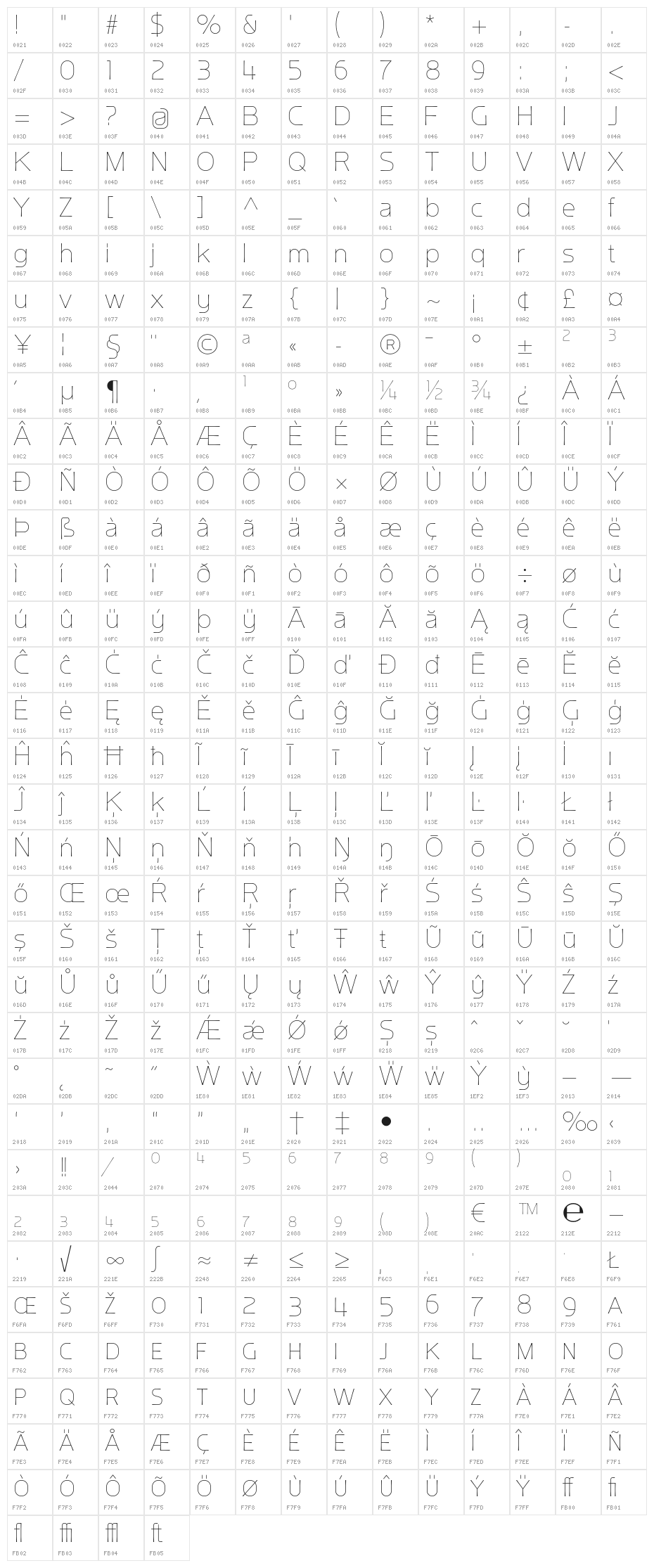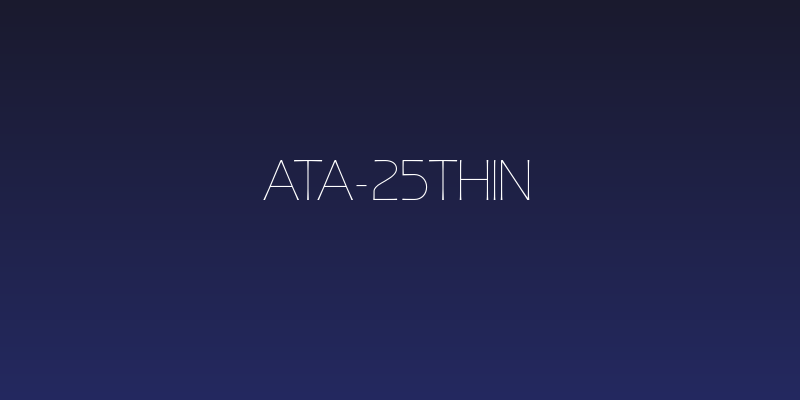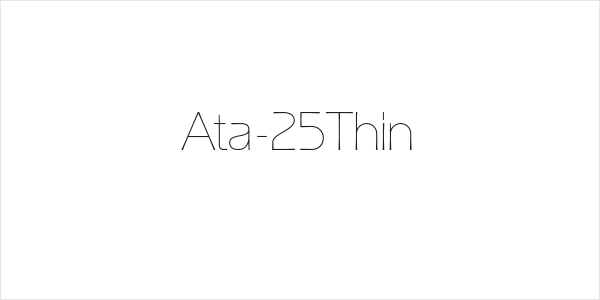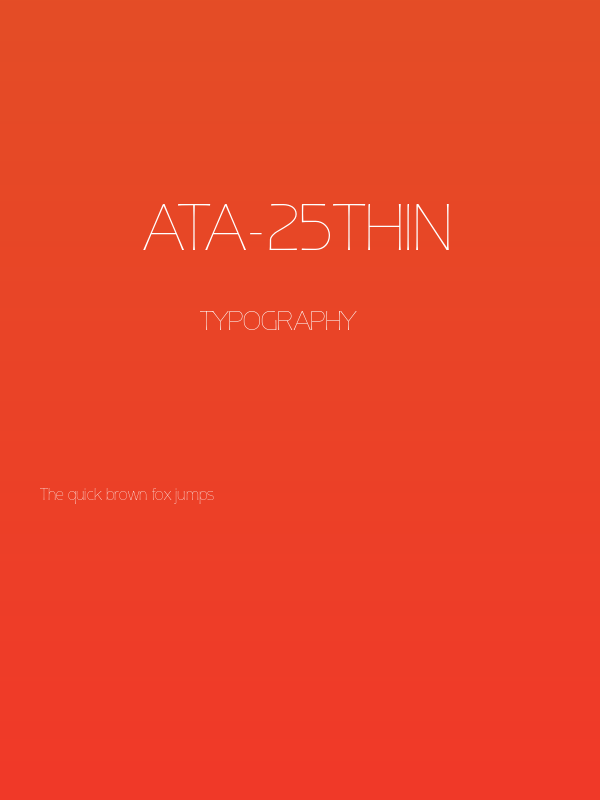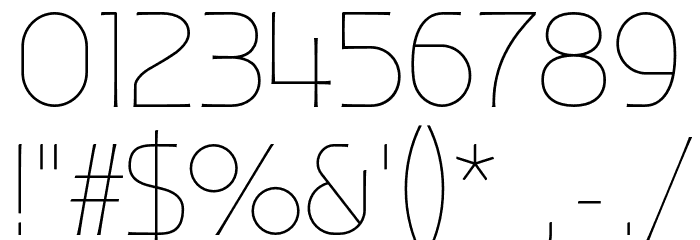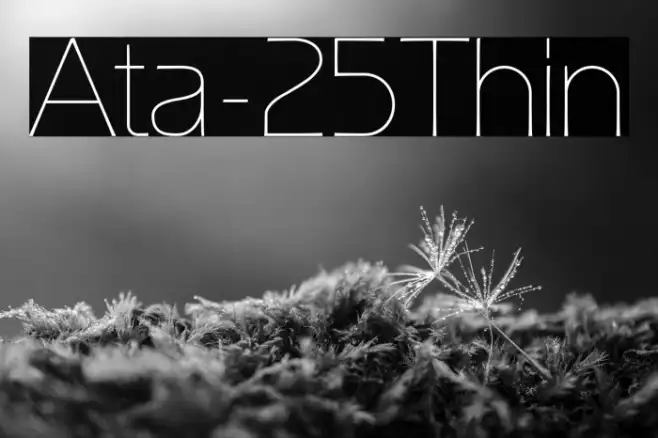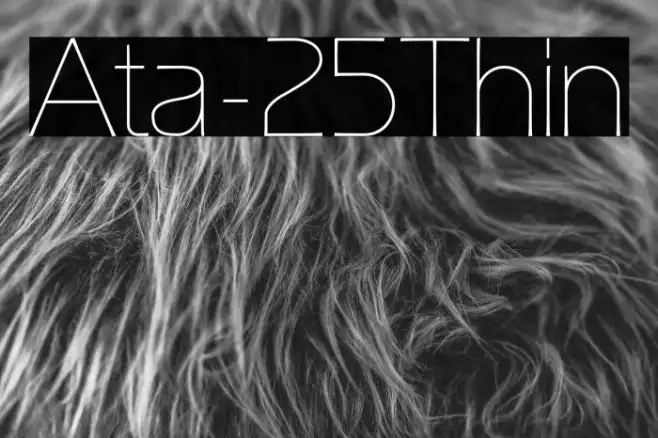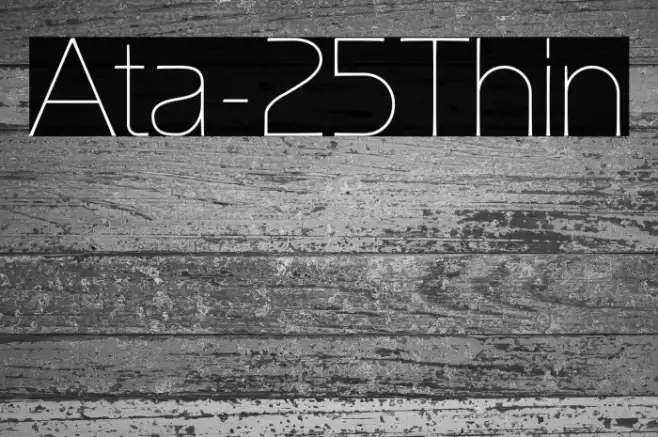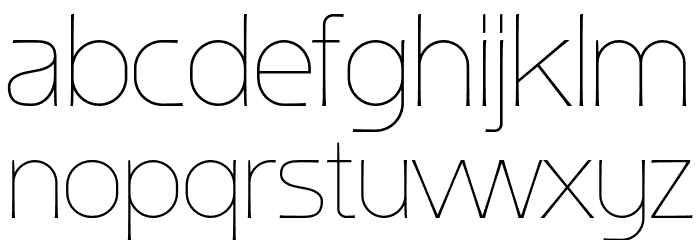
Ata-25Thin Font
Ata-25Thin Description
This font features a sleek and modern design with thin, clean lines that give it a minimalist and contemporary appearance. The characters are evenly spaced, providing a sense of balance and clarity. The uppercase letters are slightly taller than the lowercase, maintaining a uniform width throughout. The numerals are distinct and easy to read, while the special characters are elegantly integrated, enhancing the font's versatility. Its geometric structure and simplicity make it suitable for a variety of design applications, from digital interfaces to print media.
| Proposed Projects | Ideal for digital interfaces, modern branding, minimalist posters, and editorial design. |